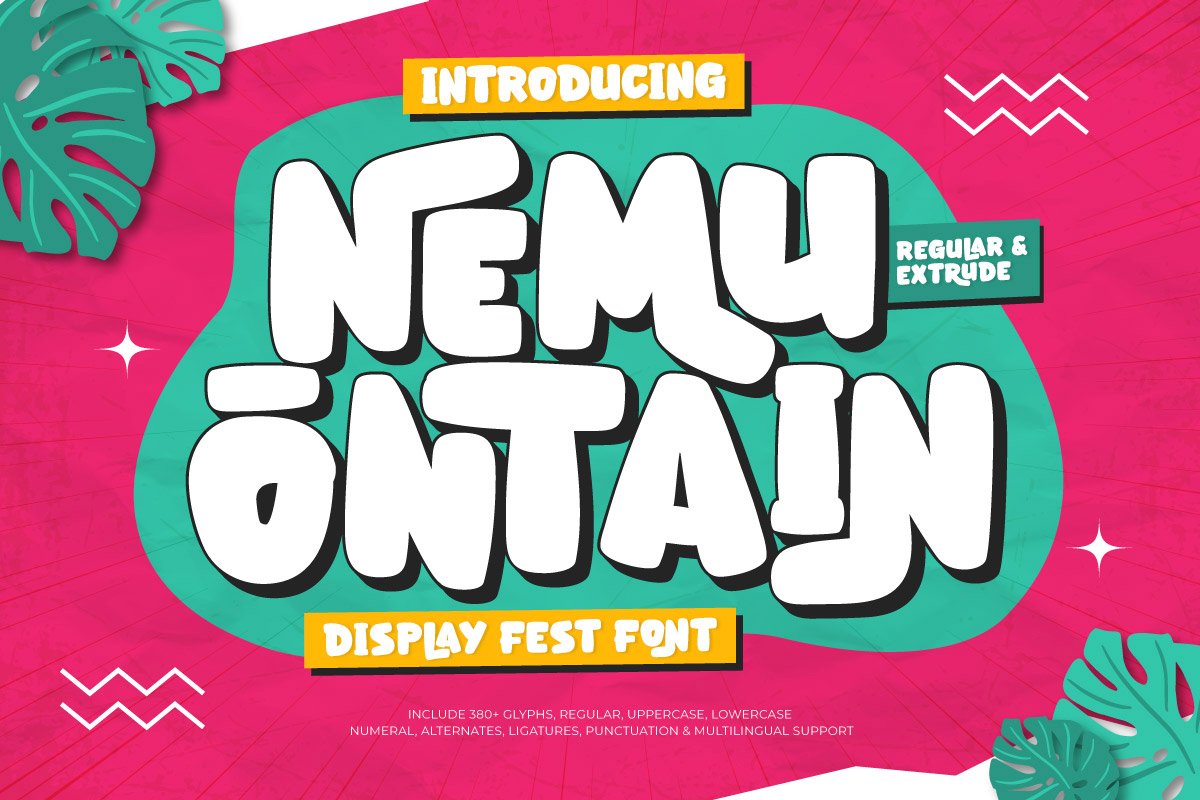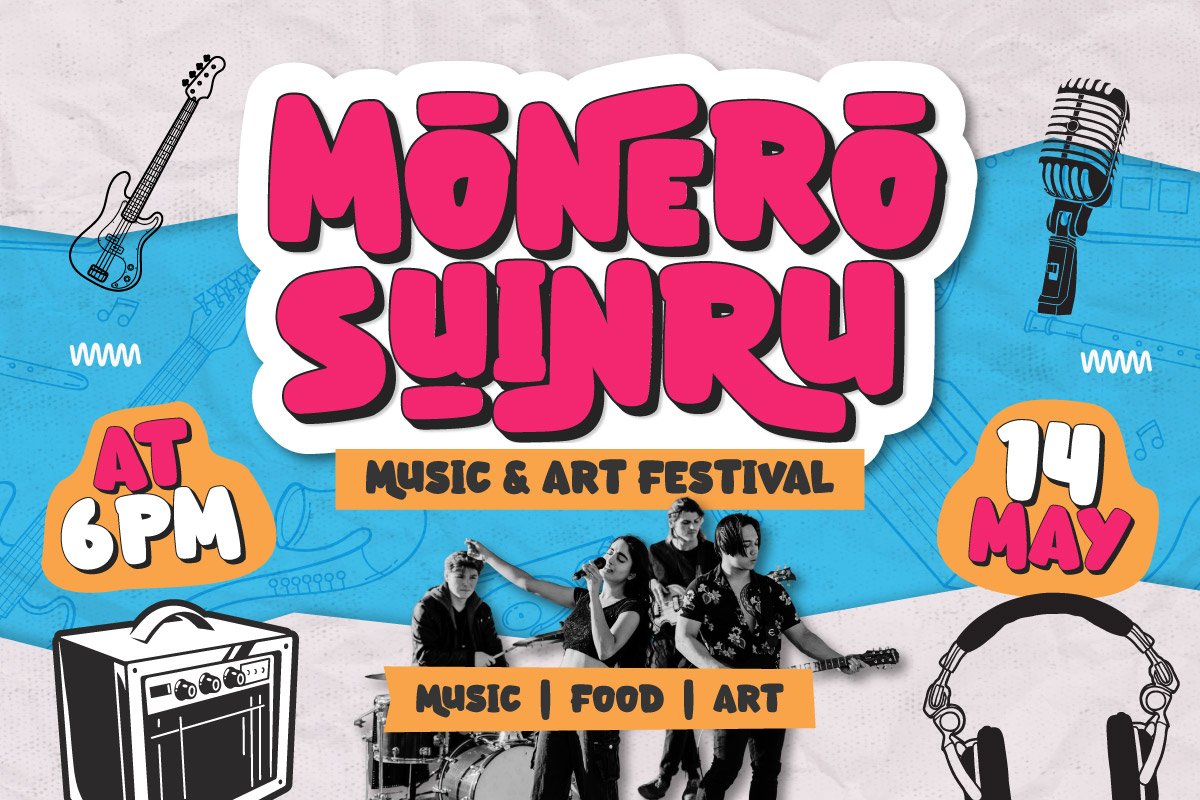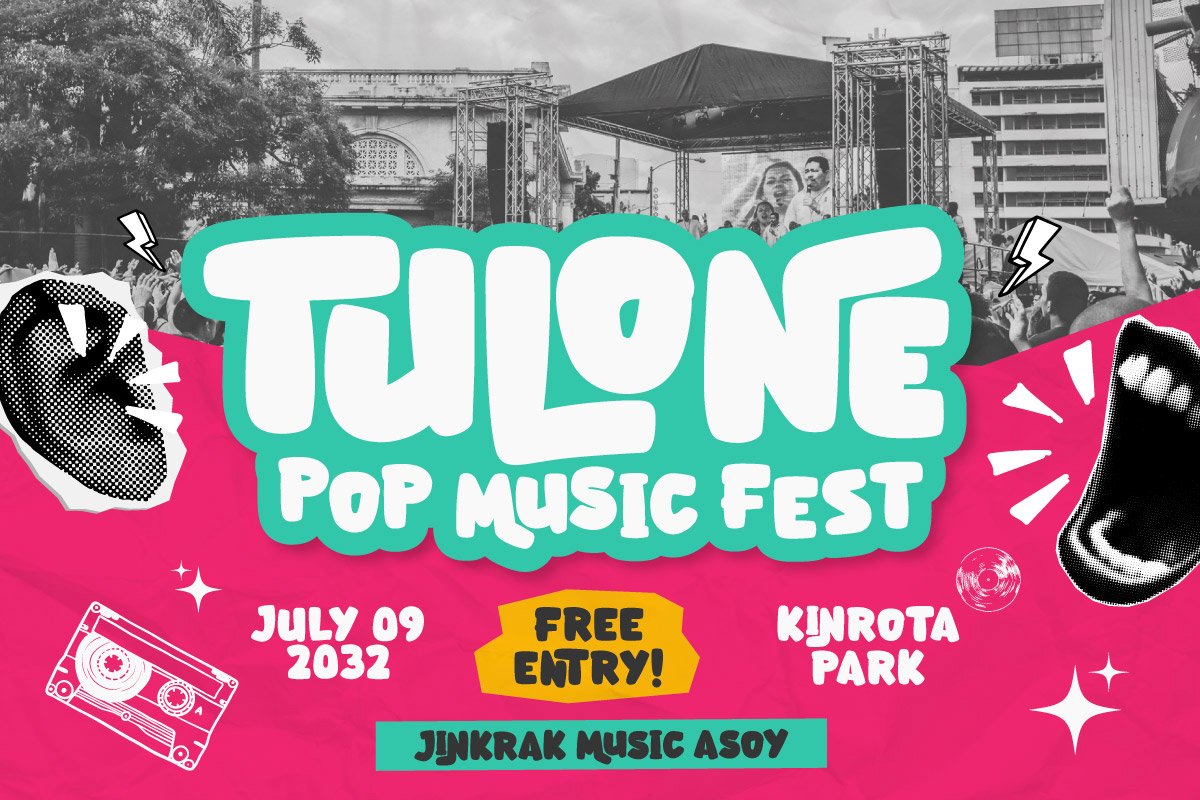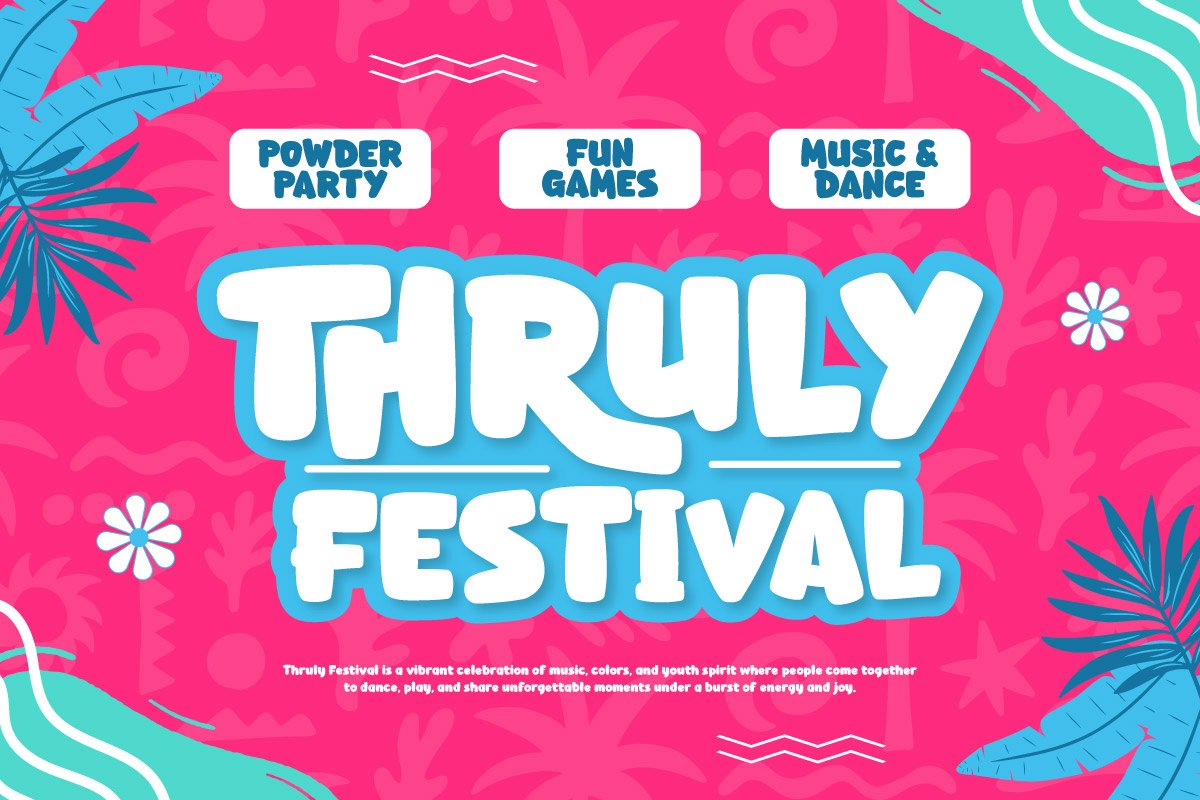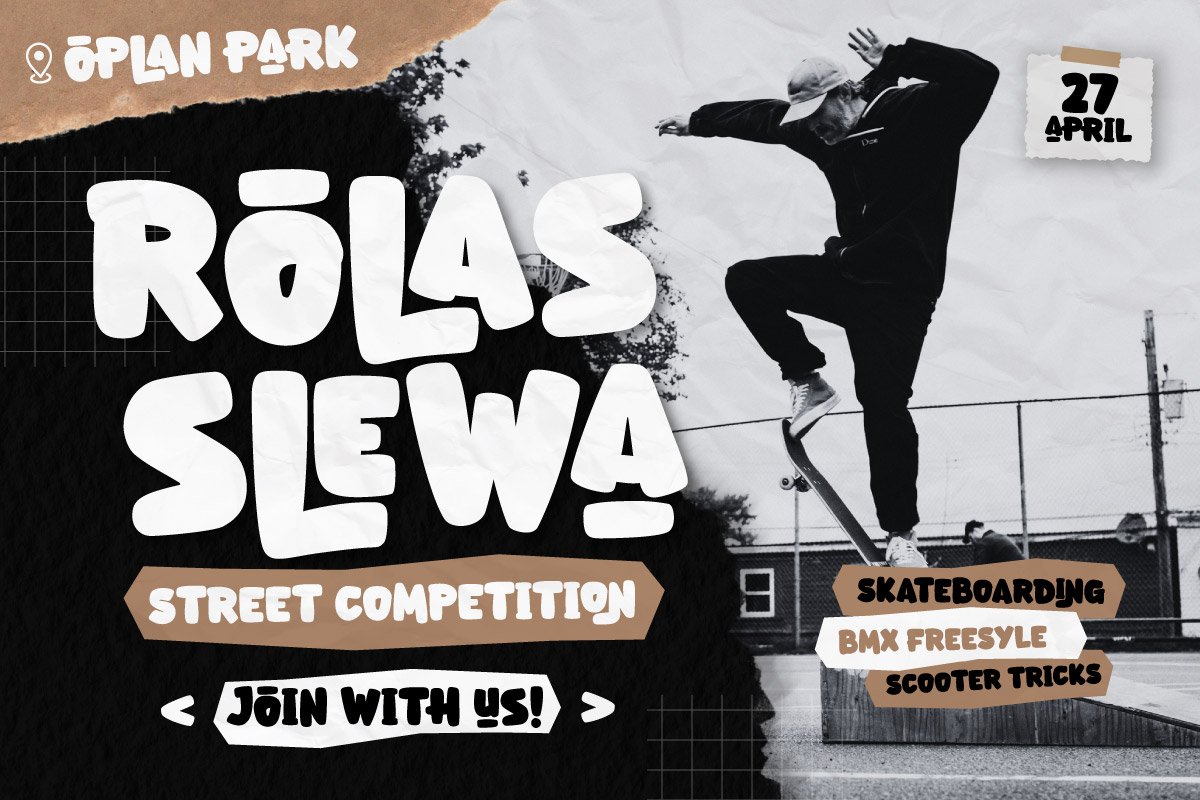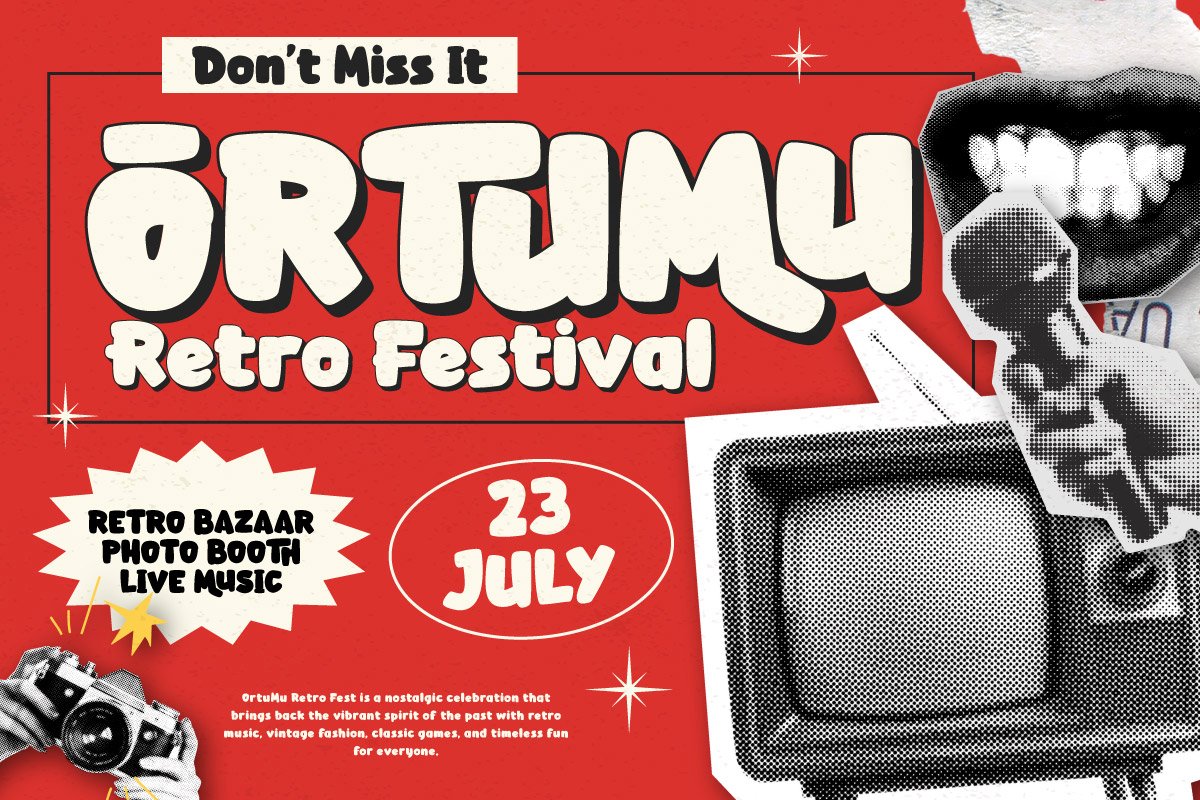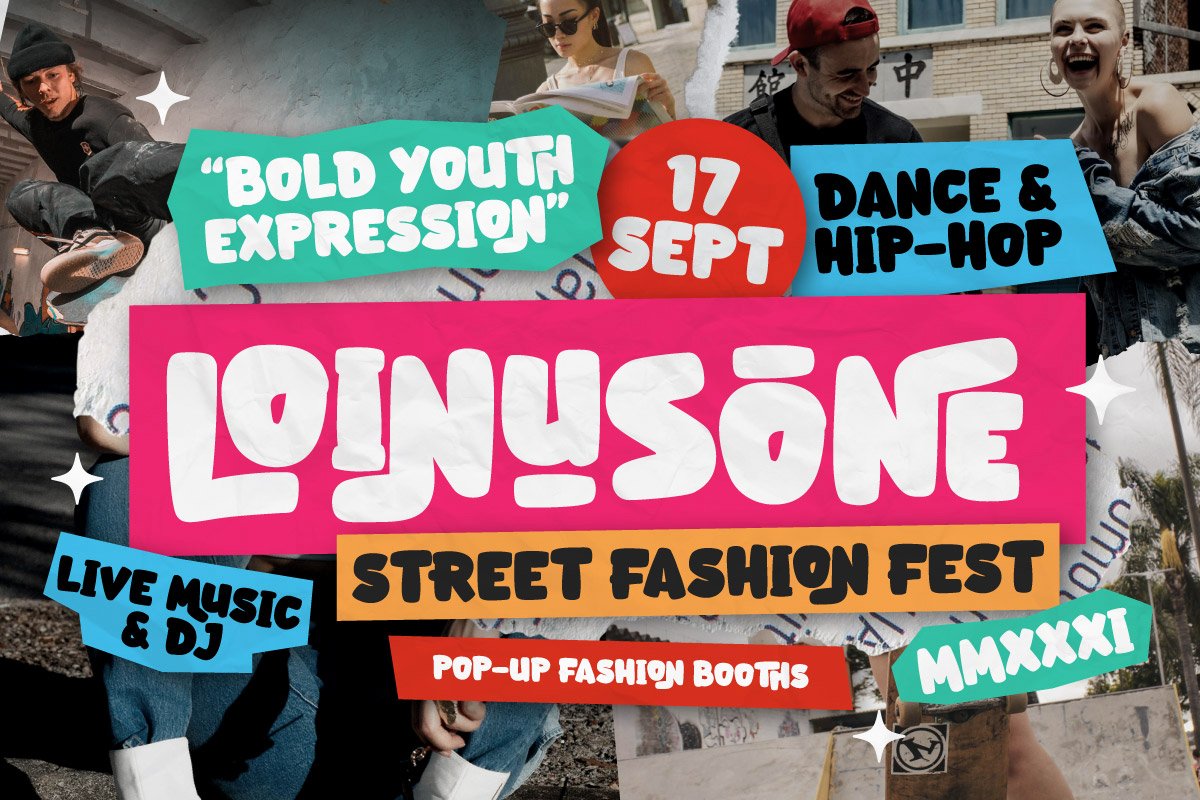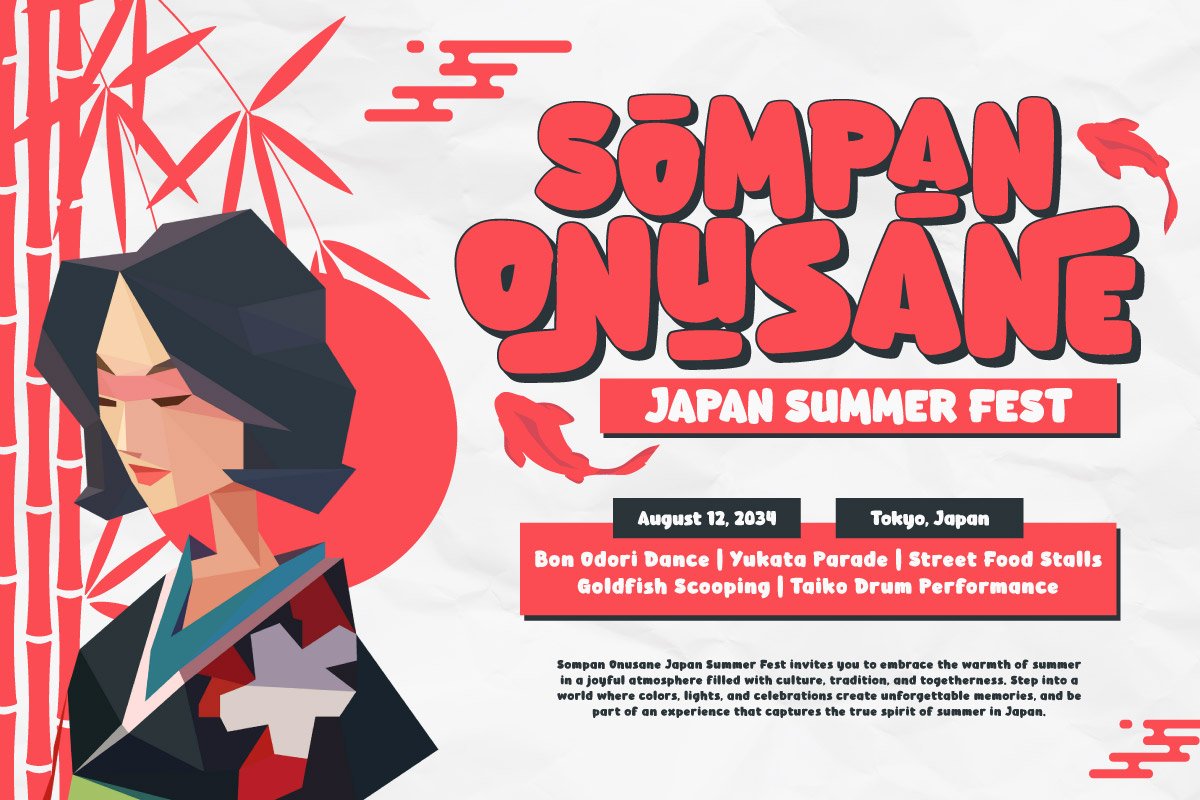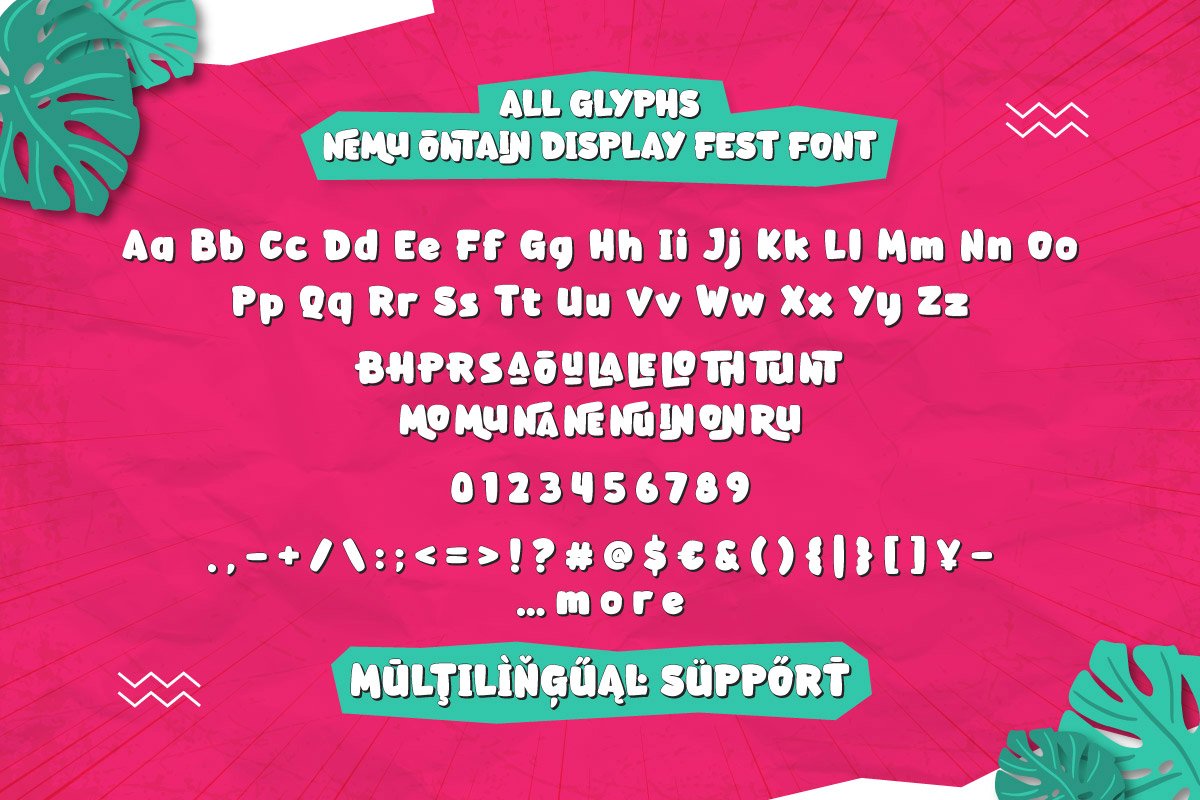
5. Nemu Ontain – Display Fest Font
Nemu Ontain – Display Fest Font
MAKE A LOUD STATEMENT WITH ENERGETIC, FESTIVAL-READY TYPOGRAPHY.
Nemu Ontain is a bold and spirited display font, dripping with the untamed energy of music festivals and street culture. Designed to command attention, its expressive characters and striking extruded effect make every word a headline act. This font brings a vibe of pure joy, freedom, and unforgettable fun to any project that dares to be different.
This powerful font family comes with two standout styles—Regular and Extrude—giving you the ultimate flexibility to create dynamic typography with depth and movement. Packed with over 360 glyphs, including uppercase, lowercase, numerals, alternates, ligatures, punctuation, and extensive multilingual support, Nemu Ontain is the perfect choice for concert posters, festival merchandise, high-energy branding, album covers, social media, and any project that needs a bold, artistic edge.
Elevate your design from standard to spectacular with Nemu Ontain—a font that’s energetic, solid, and full of style!